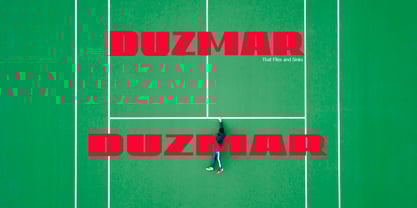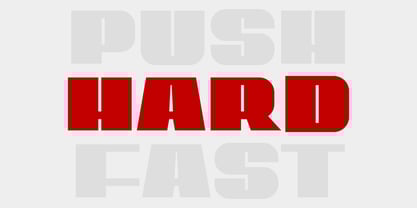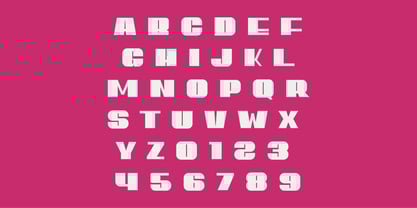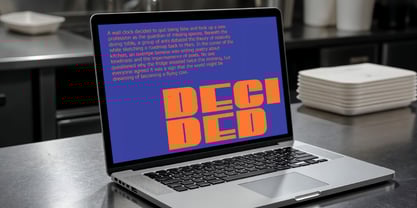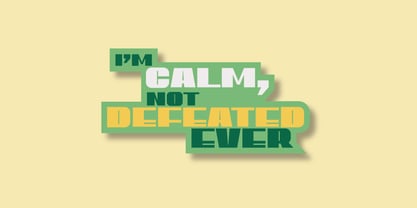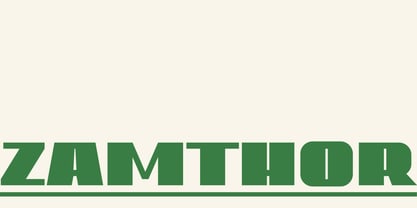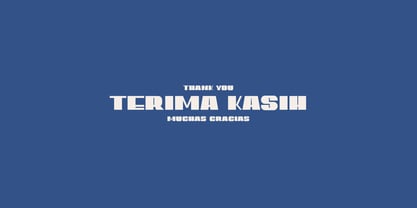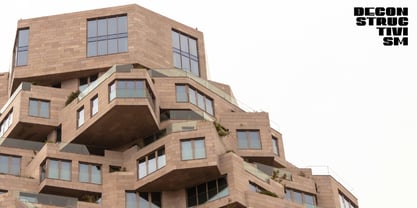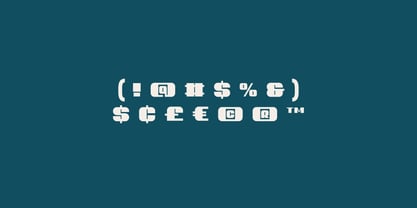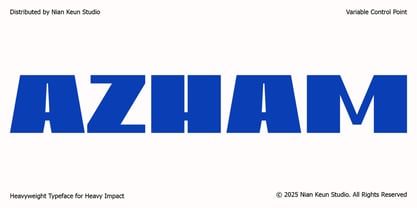
Azham
The Azham Font Family was designed by Mugi Raharjo and published by Nian Keun Studio. Azham contains 1 styles. More about this family
Azham is a heavyweight display font designed for maximum visual impact. With bold letterforms and balanced geometric shapes, this typeface ensures a strong presence in any layout. Perfect for posters, headlines, branding, packaging, and digital media, Azham delivers clarity and power in every letter.
Key Features:
* Heavyweight style with consistent stroke thickness
* All Uppercase Character
* Numbers & punctuation
* Multilingual character support
* Ideal for large-format and high-contrast designs
* Works for both print and screen projects
Perfect For:
* Bold logo designs
* Attention-grabbing posters & flyers
* Product packaging & labels
* Social media graphics
* Sports & urban-themed branding
* Large signage & billboards
* Modern editorial layouts